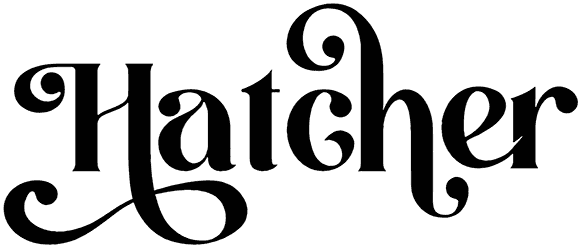
Hatcher Font
The classic and salient touch of a unique serif font might play a key part in making your design unforgettable. This is what the Hatcher font can do. The catchy and humble letters of this basic font turn it into a versatile option for numerous projects. It has a full cover of characters, and you can benefit from it for different designs like a fashion ad billboard, a novel book, and so forth.